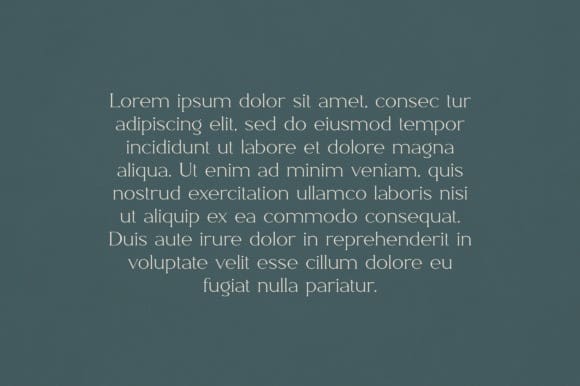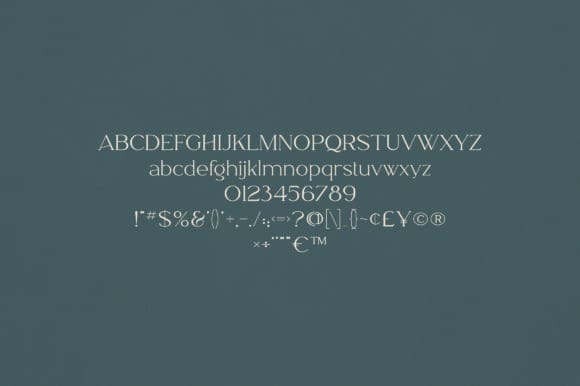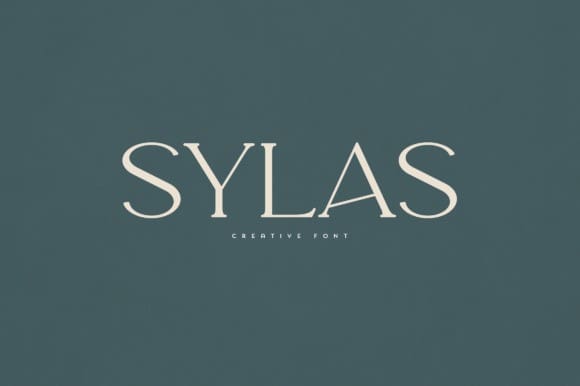
Sylas Font
Sylas Font is an elegant and versatile font that will make your typography truly unique! It will enchant every logo, branding, headline, or plain text!